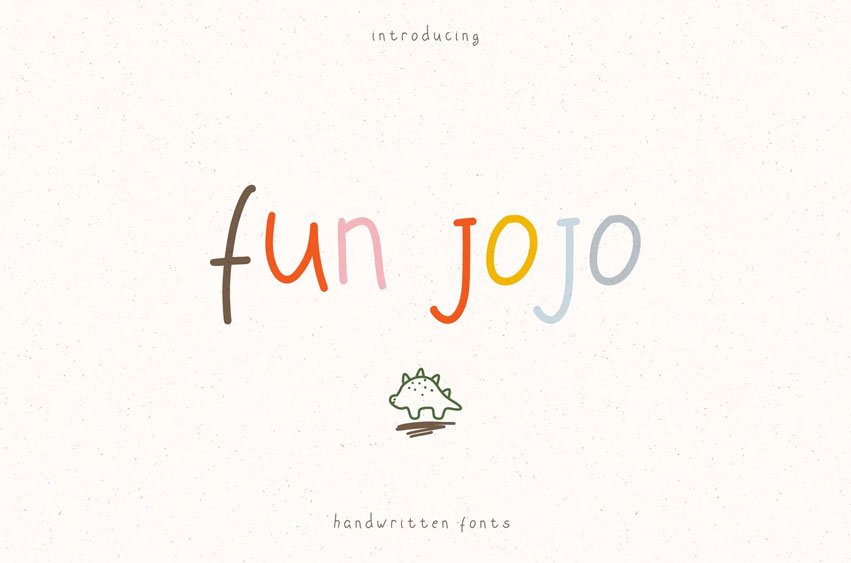
Fun Jojo Font is a handwritten, fun typeface! This truly childish and fun typeface will add optimism to any of your projects.
Perfect for social networks, baby products and various holidays. In any case, you will not pass by, because one of the styles is crazy and different symbols that can be used as stickers. They add fun and liveliness.
- display
- symbols